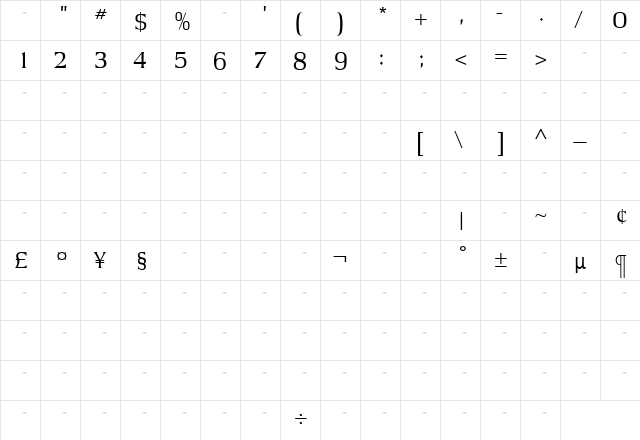
ArgusLightTab Medium
Design Context for ArgusLightTab Typeface
ArgusLightTab is a composed and adaptable typeface that performs quietly and consistently across a wide range of design contexts. The delicate stroke weight brings airiness and refinement to layouts.